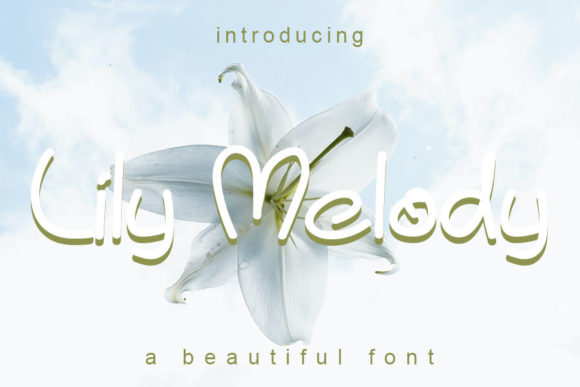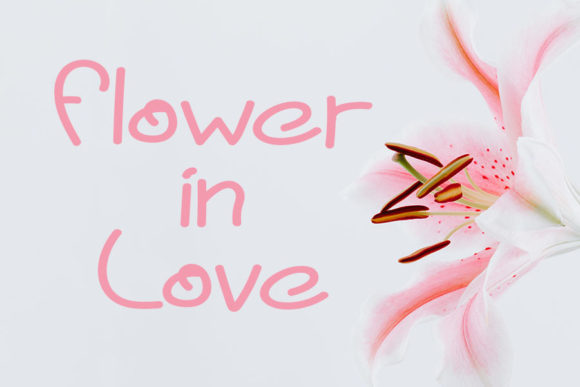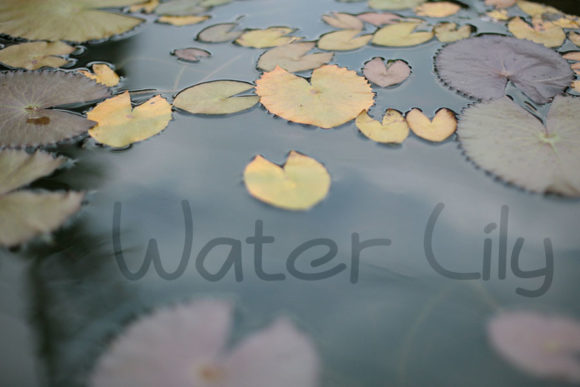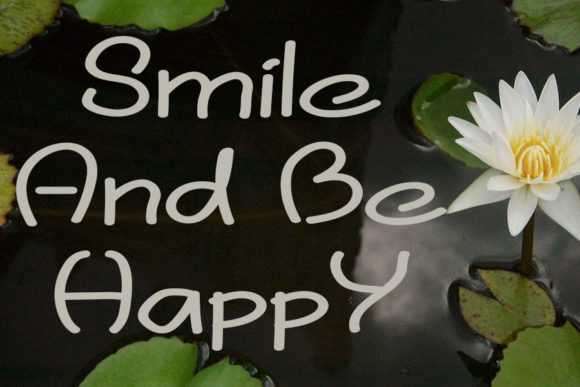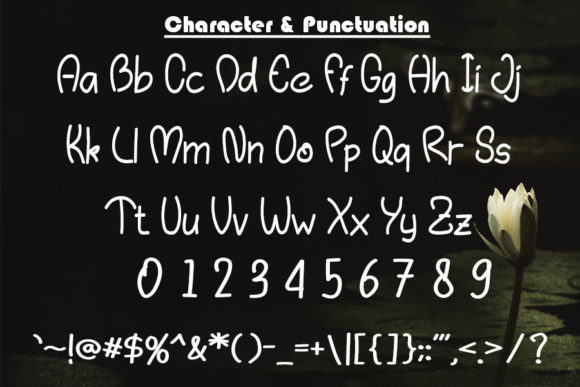
Lily Melody Font
About Lily Melody Font
Lily Melody is a charming handwritten font that exudes a sense of cuteness, simplicity, and neatness. It was meticulously crafted with the intention of bringing a friendly and refreshing look to your designs.
The beauty of Lily Melody lies in its simplicity. Each letter is carefully formed with clean lines and smooth curves, giving the font a neat and organized appearance. The characters are perfectly balanced, ensuring readability and legibility in various design contexts.
This font’s friendly and approachable style makes it a perfect choice for a wide range of projects. Whether you’re creating greeting cards, invitations, logos, or social media graphics, Lily Melody adds a touch of playfulness and warmth to your designs. Its cute and simple nature appeals to audiences of all ages, making it suitable for both children and adults.
Lily Melody’s versatility is another notable aspect. It can be used for both headline and body text, offering consistency and cohesiveness throughout your design. The font’s clean and legible structure ensures that your message is conveyed effectively while maintaining a friendly and inviting vibe.
With its refreshing look, Lily Melody is an ideal option for designs that aim to evoke positive emotions and create a lighthearted atmosphere. It brings a sense of joy and whimsy to any project, making it particularly suitable for children’s books, playful branding, and designs that seek to capture the essence of happiness and simplicity.
In addition to its cute and friendly appearance, Lily Melody is also easy to work with. Its smooth letterforms and consistent baseline allow for smooth integration into various design software and applications. You can easily pair it with other fonts or incorporate it into graphic elements without compromising its charming nature.
Overall, Lily Melody is a delightful handwritten font that adds a touch of cuteness, simplicity, and neatness to your designs. Whether you’re working on invitations, branding, or any other creative project, this font’s friendly and refreshing look will surely bring a smile to your audience’s face.